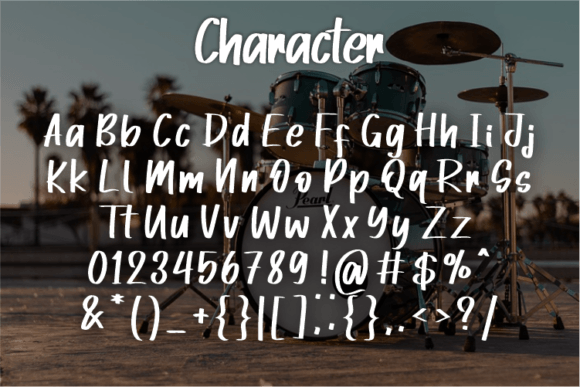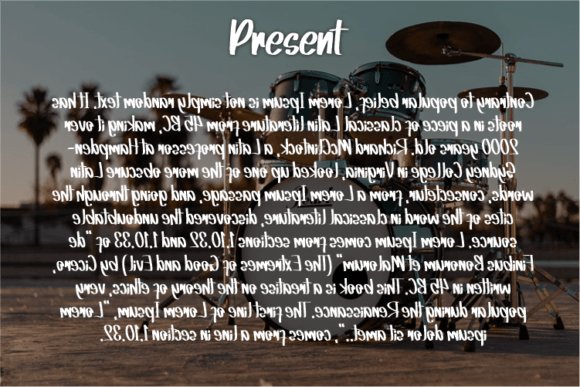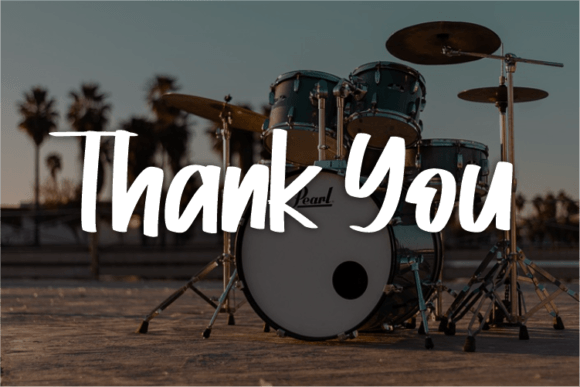
Introduction to Polware Font
Have you ever been stuck on a creative project, unable to find the perfect font to bring your vision to life? I know I have. It’s that moment when you scroll through countless options, and nothing seems to match the elegance and sophistication you’re aiming for. But then, like a ray of sunshine, you stumble upon the Polware Font.
This stunning script typeface is more than just a pretty face – it’s a game-changer for designers. With its simple yet modern look, Polware Font is perfect for creating luxurious and elegant designs that leave a lasting impression. Whether you’re working on a high-end logo, book or movie title, or fashion brand, this versatile font is sure to elevate your creative project to the next level.
Key Features of Polware Font
- Available in 3 different font weights, providing flexibility for designers to choose the perfect style for their project.
- Designed with a modern aesthetic, making it an ideal choice for contemporary creative projects.
- Perfect design resource for graphic designers, digital artists, and anyone looking for a unique and modern font.
Honest Review: Polware Font
I recently had the chance to play around with the Polware Font, and I must say it’s a unique addition to any creative project. The high quality design is clear from the start, making it a great free download for anyone looking to spice up their design resource.
- ✨ The transparent background allows for seamless integration into any design.
- ✨ The clean lines and modern aesthetic make it perfect for a wide range of creative projects.
- ✨ The font is incredibly versatile and can be used for both digital and print designs.
- ⚠️ The font may not be suitable for very small text sizes due to its complex design.
- ⚠️ Some users may find the font too bold or overwhelming for certain designs.
Overall, I was impressed with the Polware Font and would definitely recommend it to anyone looking for a high quality, unique design resource. It’s a great addition to any designer’s toolkit and can help take your creative project to the next level.
Tips for Getting the Most Out of Polware Font
For optimal results, use the Polware Font with a high-quality image or background. Experiment with different font sizes, colors, and styles to create a unique design. You can also use the font with other design resources to create a cohesive look.
The Polware Font is ideal for creative projects such as logo design, branding, and advertising. It’s also perfect for presentations, documents, and websites that require a professional and creative touch. With its high-quality design and transparent background, this font is a must-have for any designer or creative professional.